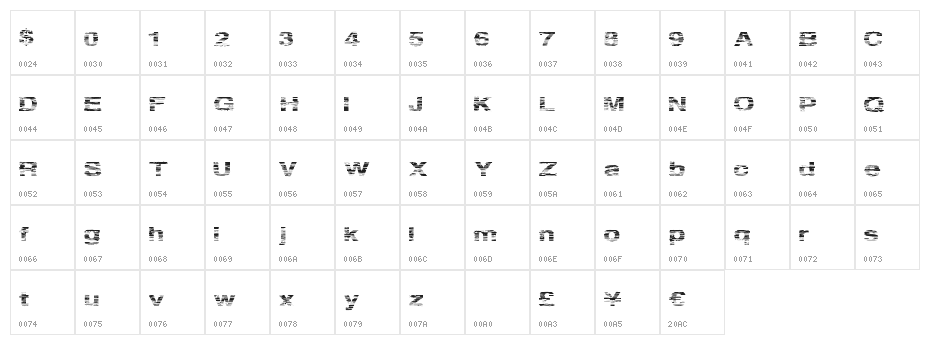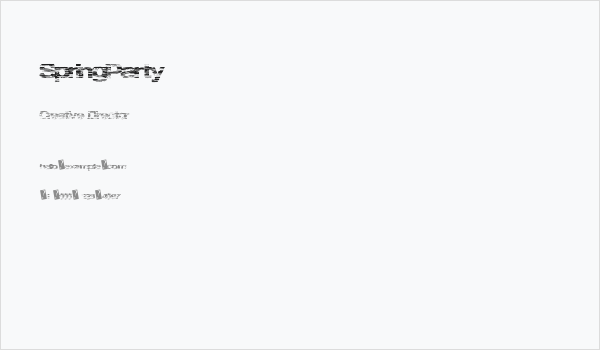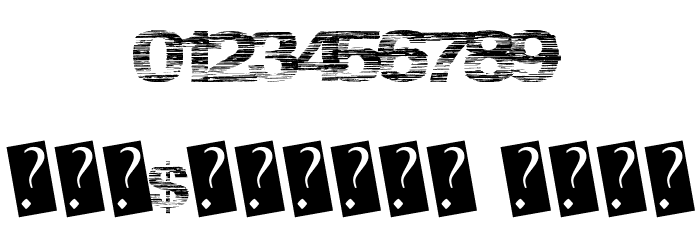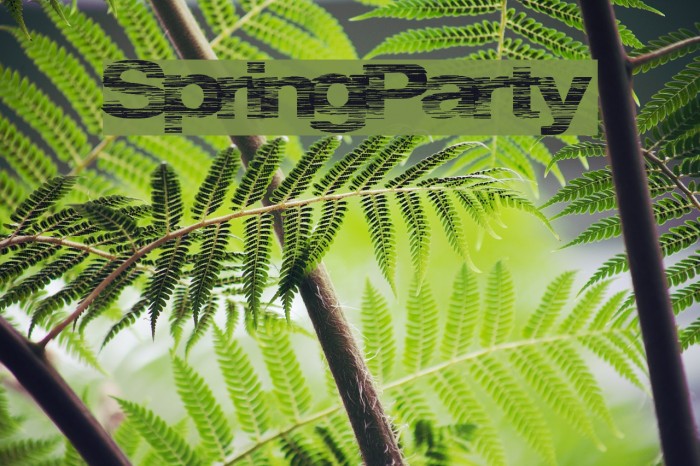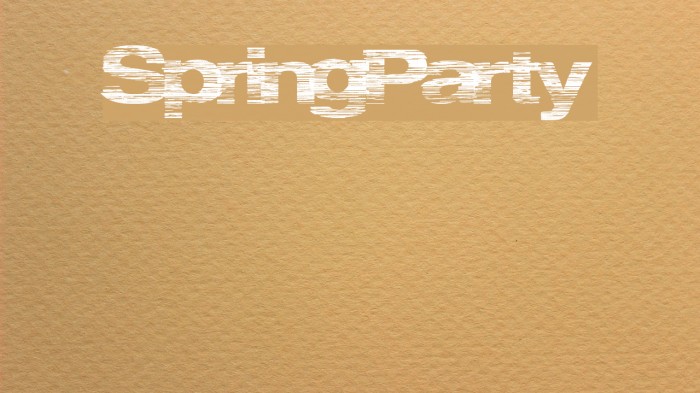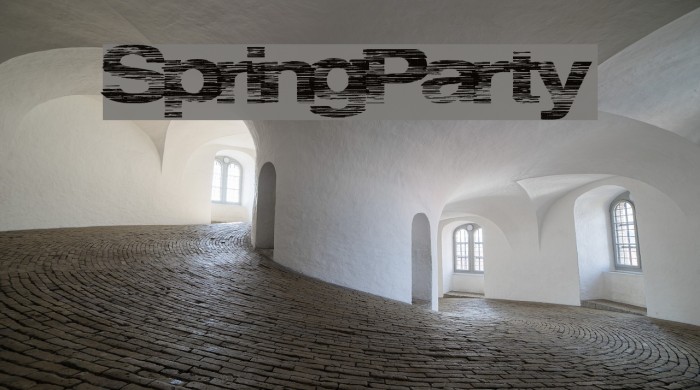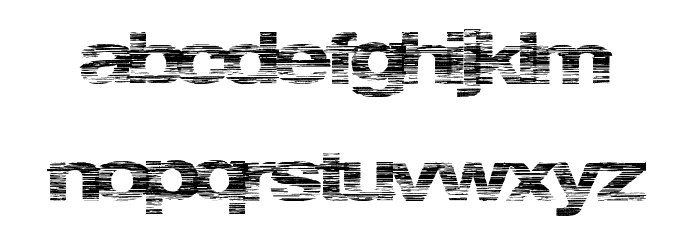
SpringParty Font
SpringParty Description
This font features a unique, distressed appearance with horizontal lines running through each character, giving it a glitch or static effect. The uppercase and lowercase letters maintain a consistent style, with bold, blocky shapes that are slightly distorted by the line pattern. Numbers and special characters follow the same design, ensuring uniformity across all elements. The font's style is eye-catching and unconventional, making it suitable for projects that require a modern, edgy look. Its distinct appearance may not be ideal for body text but excels in creating impactful headlines or artistic designs.
| Proposed Projects | Perfect for digital art, music album covers, event posters, and any project needing a modern, edgy aesthetic. |